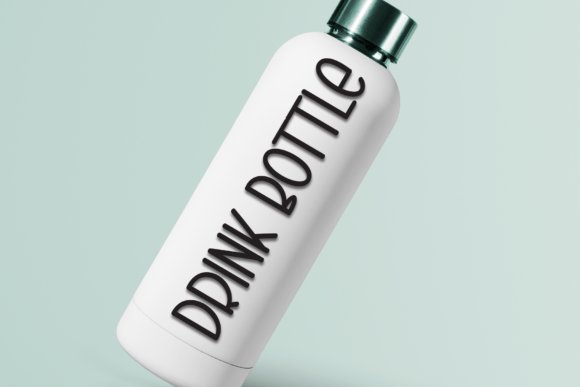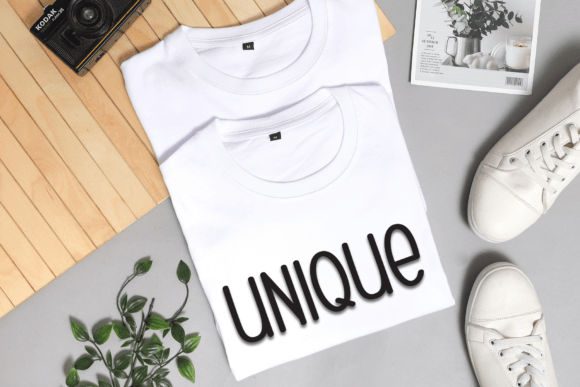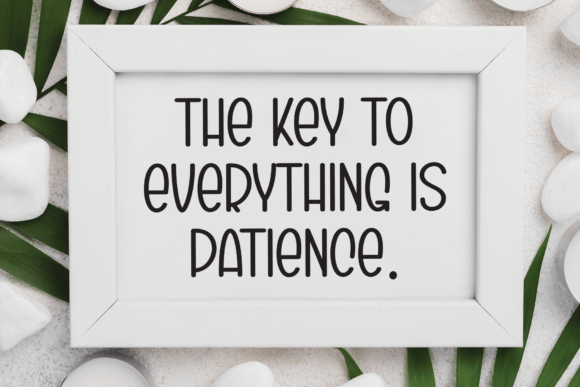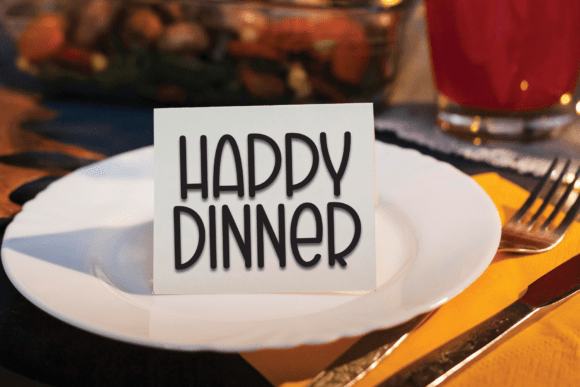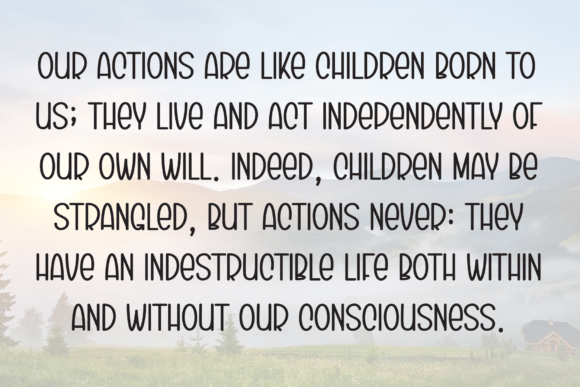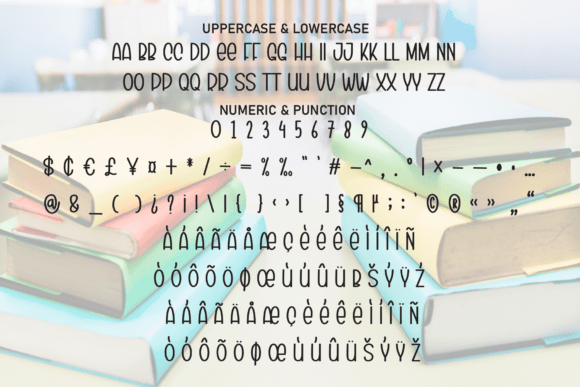
The Bookschool Font: A Warm and Inviting Addition to Your Design Toolkit
Have you ever been in the middle of a design project, and suddenly, you realize that the font you’ve chosen just isn’t working? I recall a particularly frustrating experience while working on a branding project for a local bookstore. The client wanted a font that was both elegant and approachable, but everything I tried seemed to fall flat. That’s when I discovered the Bookschool font, and it completely transformed my design.
A First Impression: What Makes Bookschool Special
Bookschool is a casual and neat display font that brings warmth and clarity to any project. Its clean structure and approachable style make it perfect for branding, headlines, and everyday designs. The balanced letterforms offer readability and charm, making every message feel genuine and inviting. Whether you’re a designer, crafter, or creative hobbyist, Bookschool is definitely worth adding to your toolkit.
What I Love About Bookschool ✨
- ✅ Warm and inviting feel: Bookschool has a unique ability to make your designs feel cozy and approachable.
- ✅ Clean and balanced letterforms: The font’s clean structure and balanced letterforms make it easy to read and visually appealing.
- ✅ Versatile: Bookschool works well for a variety of design projects, from branding and headlines to everyday designs.
- ⚠️ Limited use for body text: While Bookschool is perfect for headlines and titles, it may not be the best choice for body text due to its display font nature.
- ⚠️ Some letter combinations may require manual kerning: As with any font, you may need to adjust the kerning for certain letter combinations to ensure optimal readability.
The Story Behind Bookschool: Designer Inspiration
The Bookschool font was designed with the goal of creating a warm and inviting display font that would bring clarity and personality to any project. The designer drew inspiration from classic serif fonts and modernized them with a clean and approachable style. The result is a font that feels both elegant and friendly, making it perfect for a wide range of design applications.
Q: What type of projects is Bookschool best suited for?
A: Bookschool is perfect for branding, headlines, and everyday designs that require a warm and inviting feel.
Q: Can I use Bookschool for body text?
A: While Bookschool can be used for body text, it’s primarily designed as a display font, and may not be the best choice for longer blocks of text.
Q: Does Bookschool support OpenType features?
A: Yes, Bookschool supports OpenType features, including glyphs and stylistic alternates, which can be accessed in compatible design platforms.